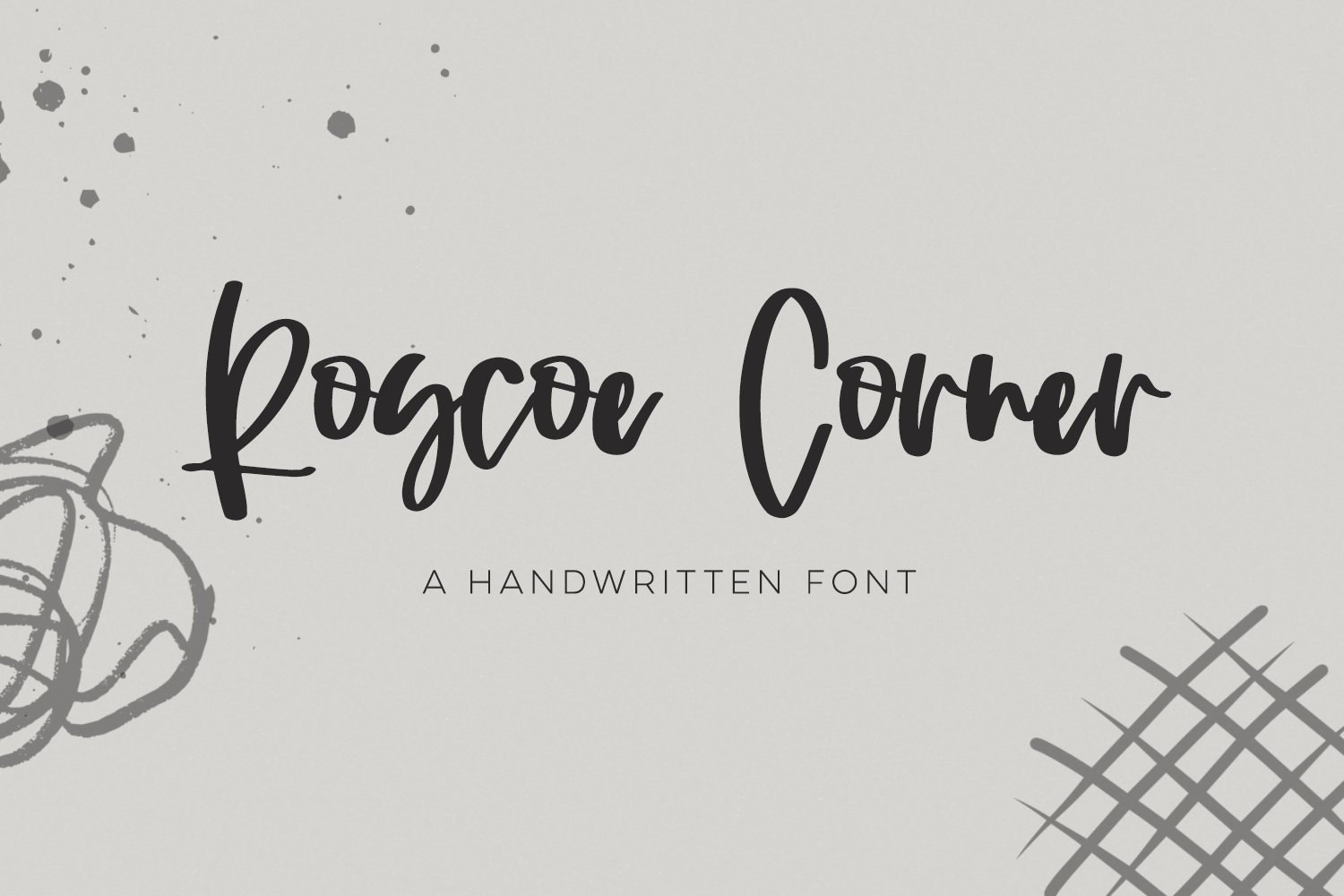
Introducing Roscoe Corner, a handwritten font. Roscoe Corner’s thickness resembles writing with a marker, and has a casual, messy signature look.
Roscoe Corner Script is best for:
- website design + website accents - think design blogs, travel blogs, fashion blogs, & more